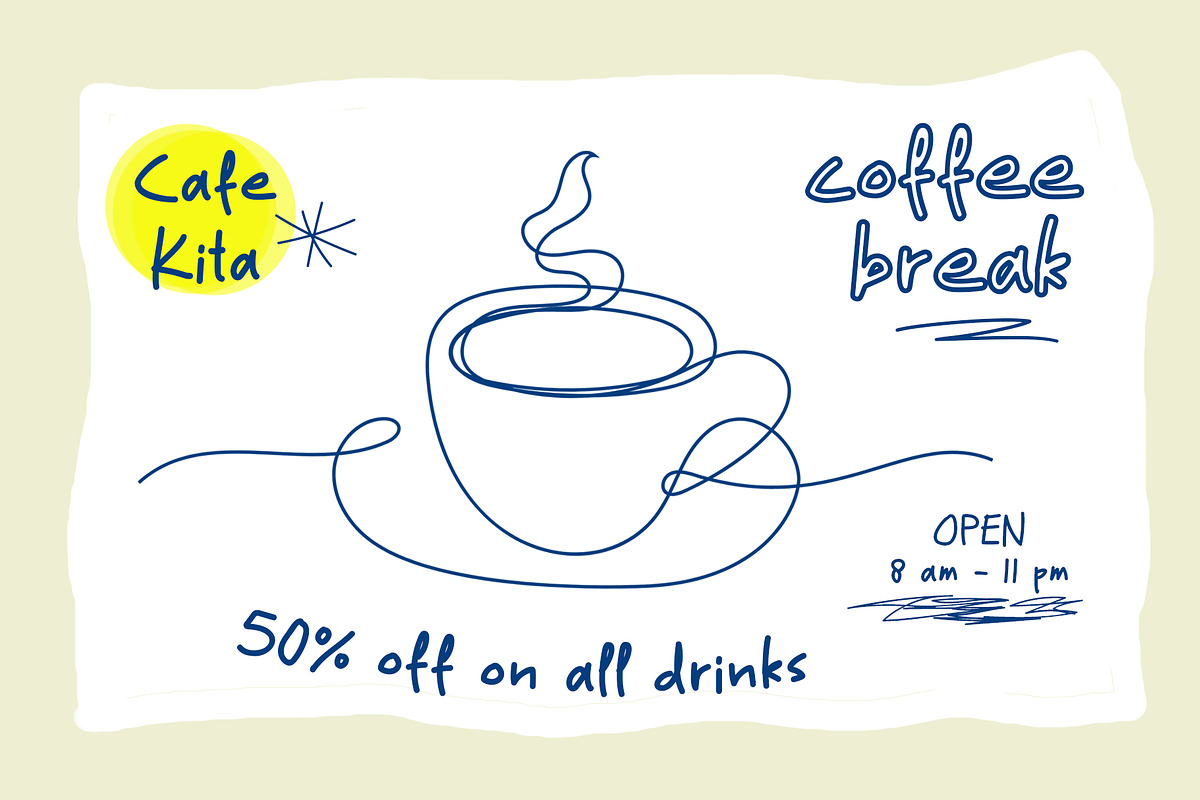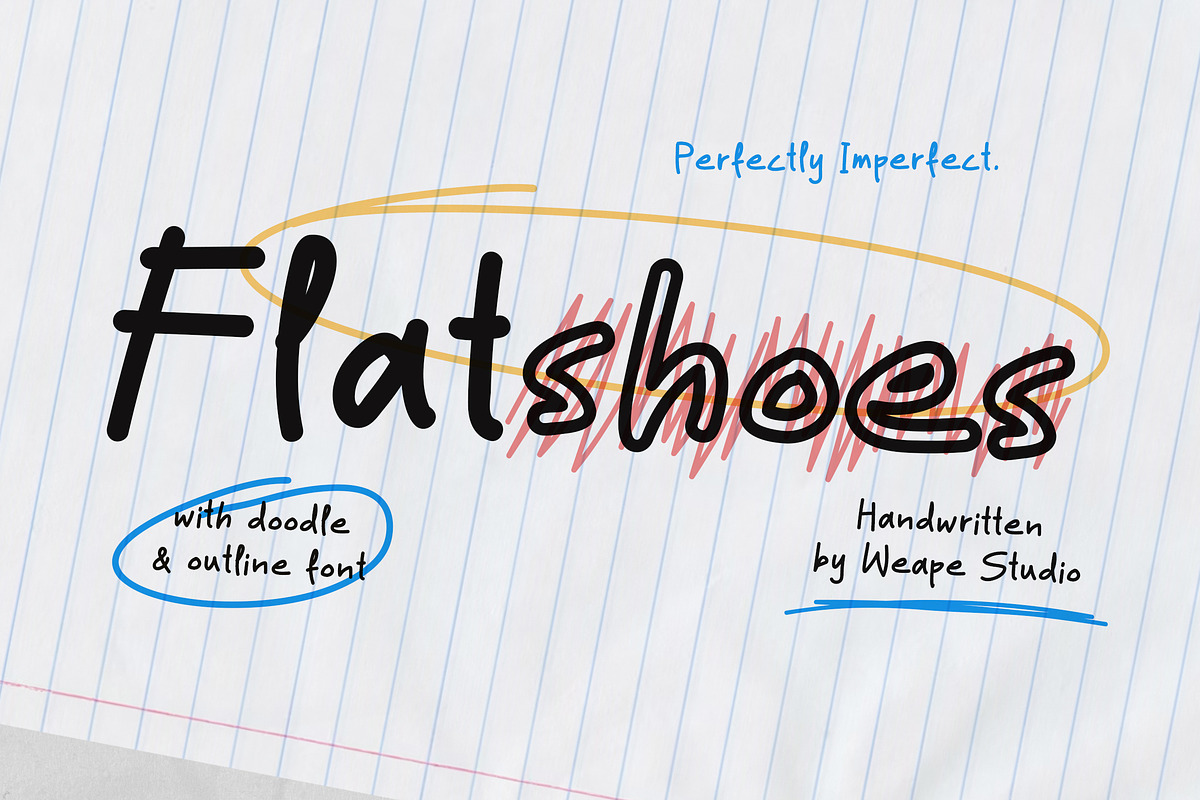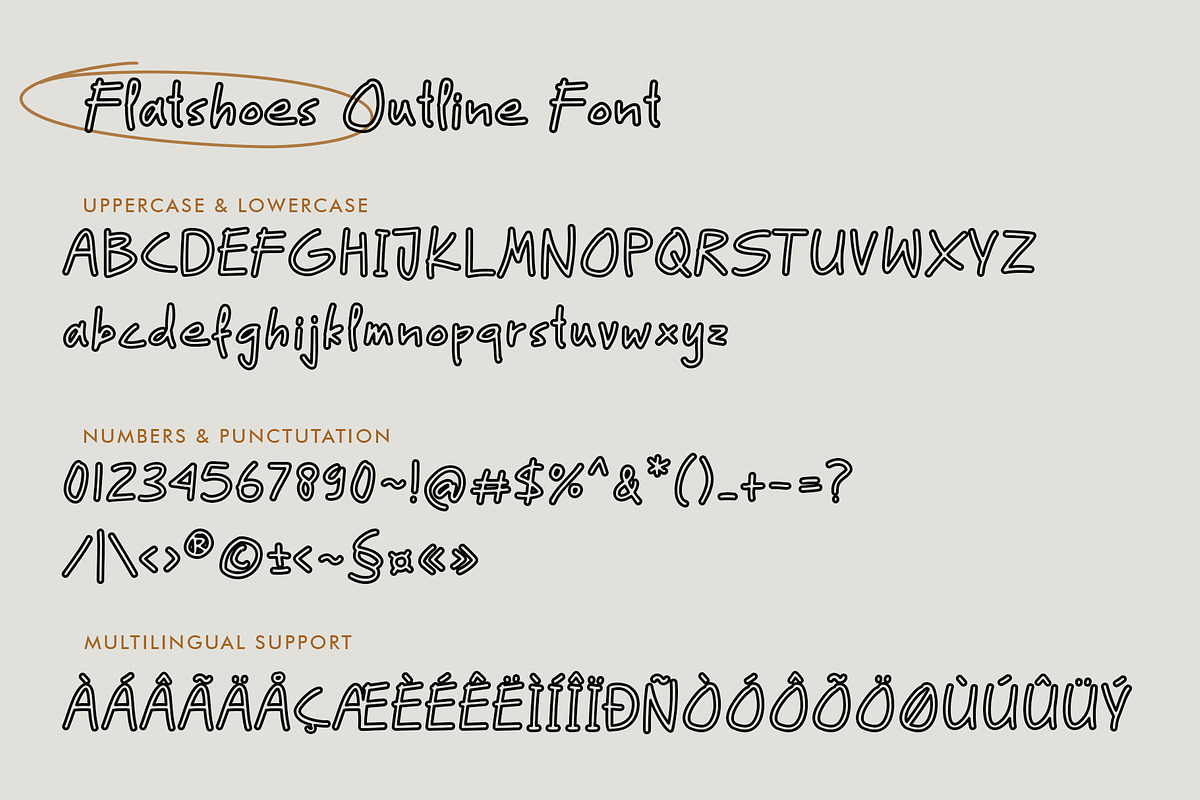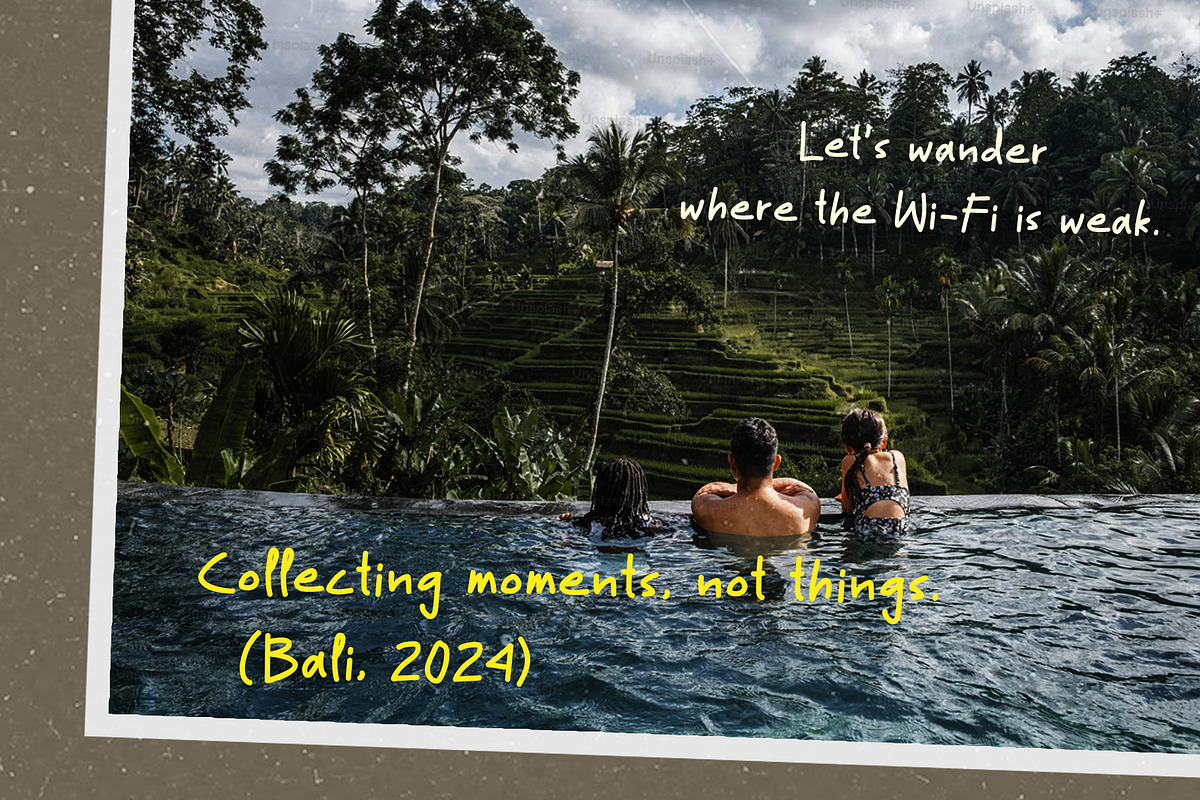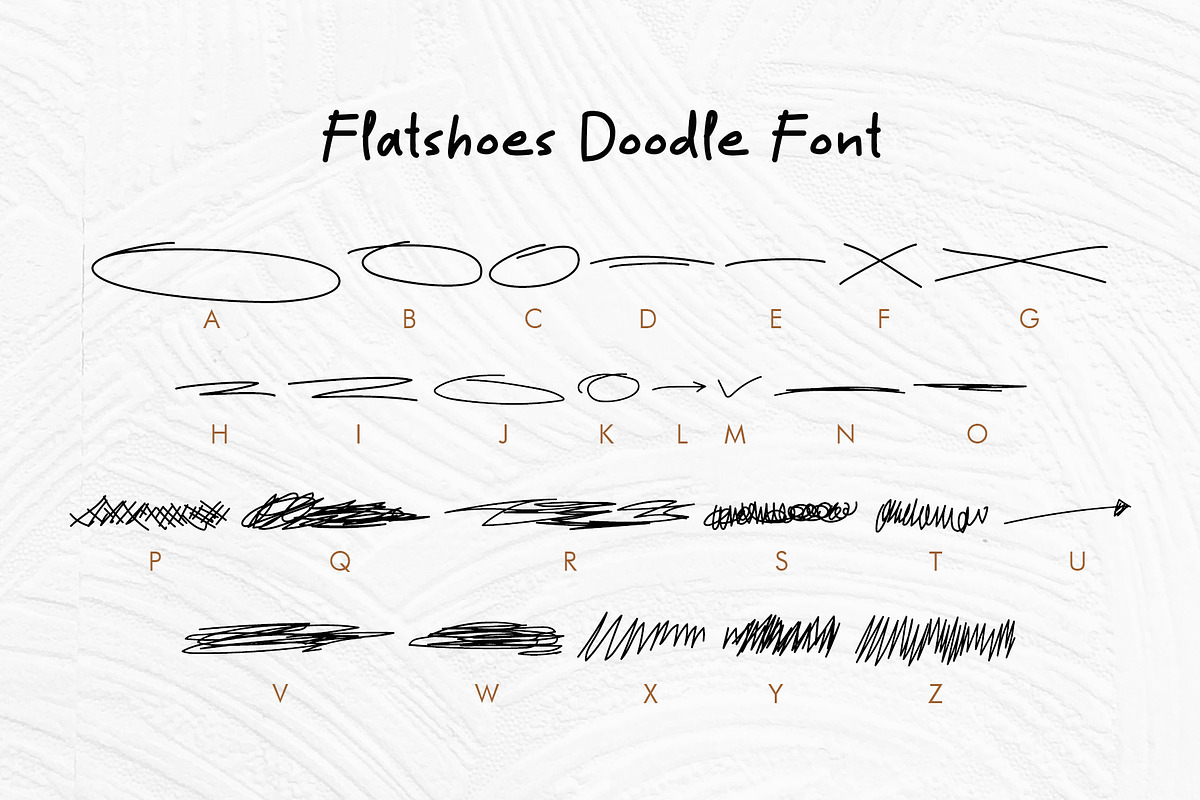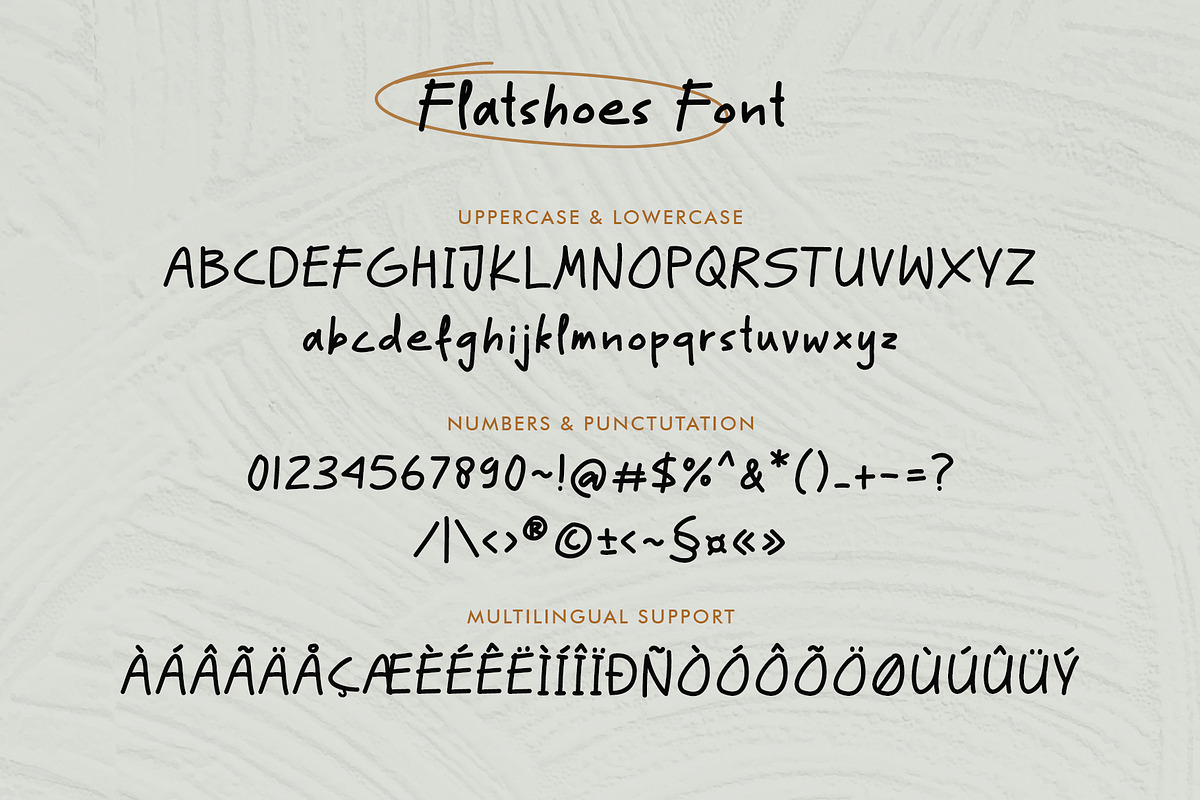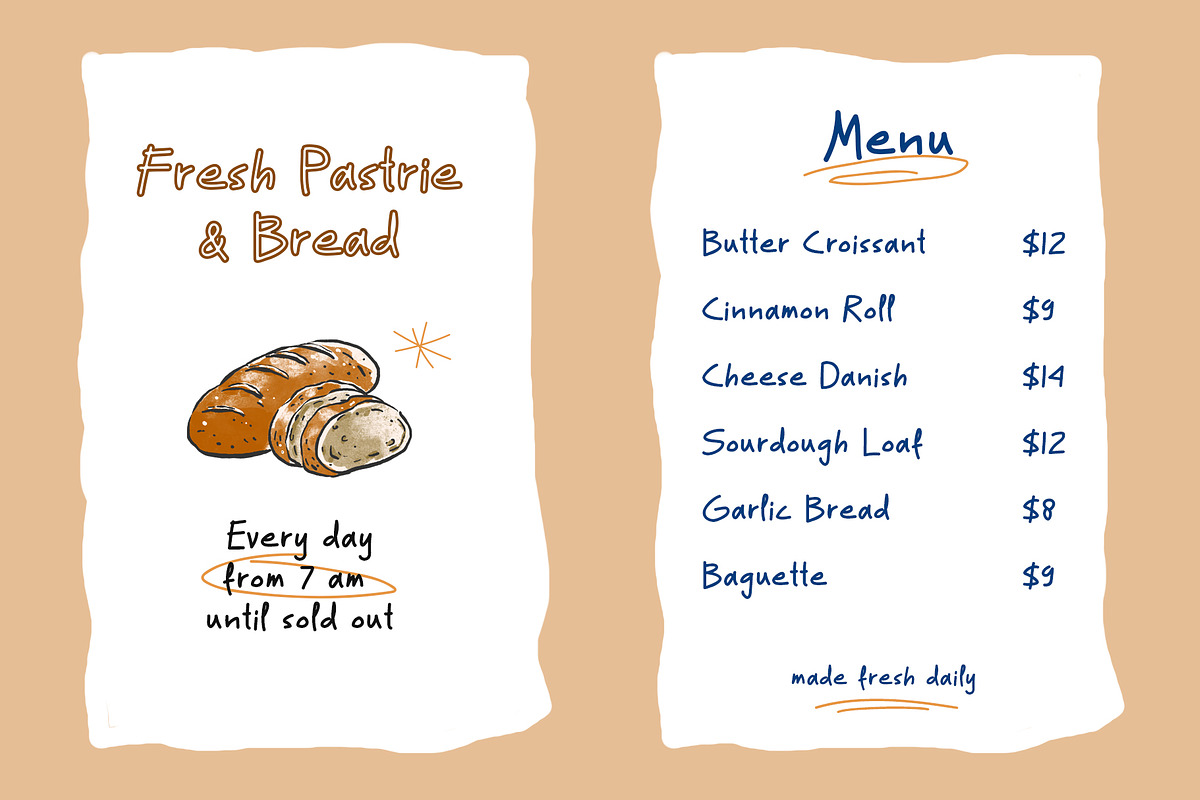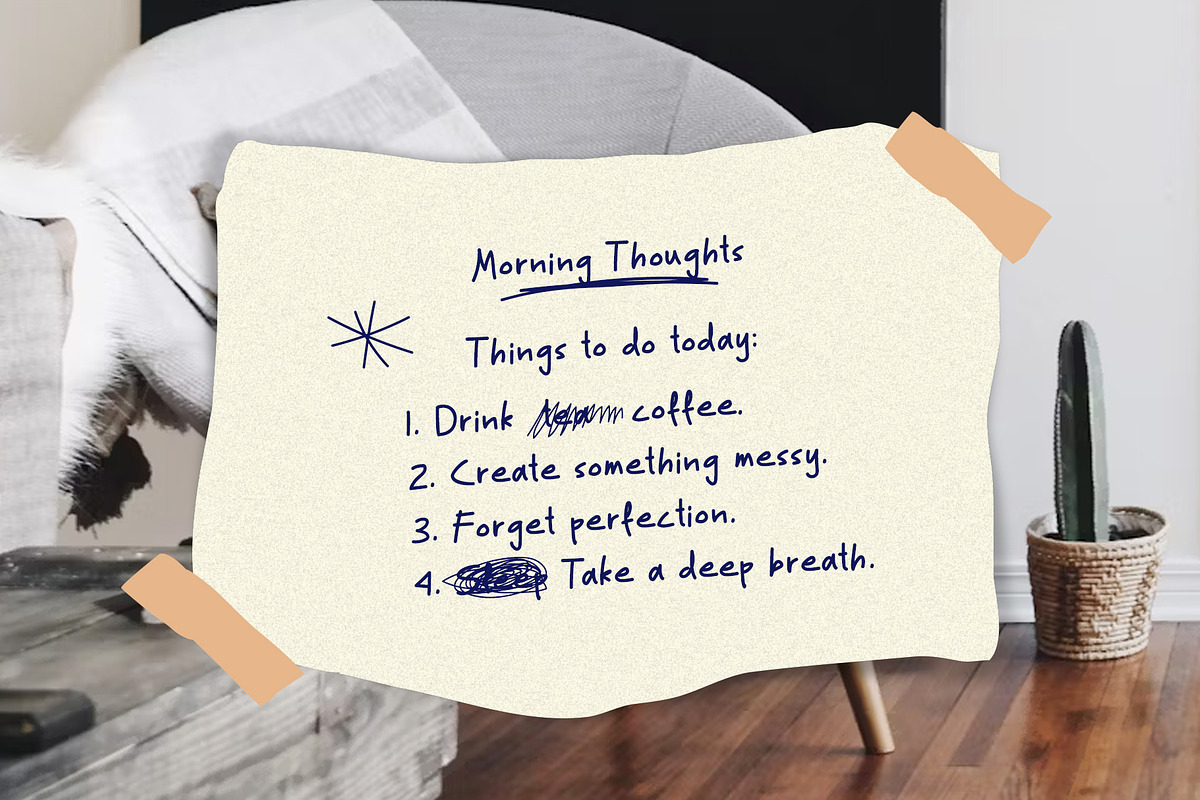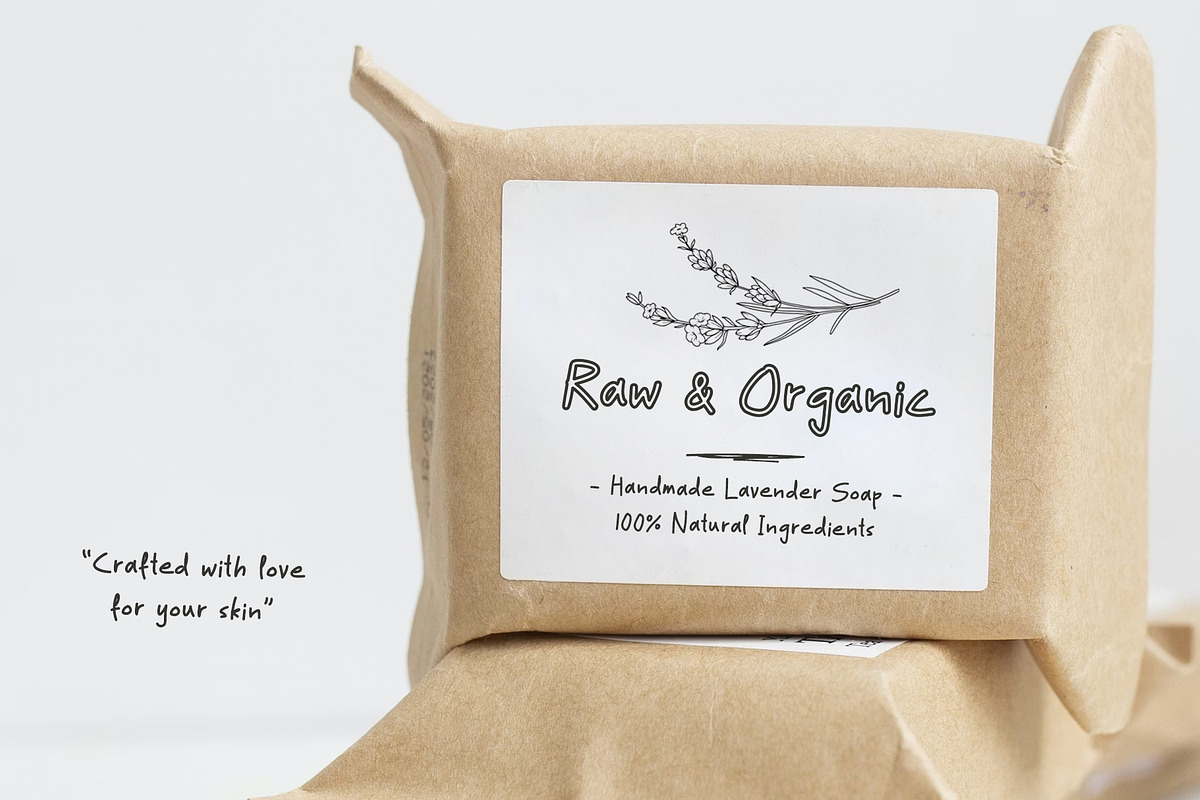
Flatshoes - Handwritten Font
Meet Flatshoes — a font that celebrates the chaotic beauty of everyday life. It’s perfectly imperfect, just like your favorite pair of comfortable shoes.
Flatshoes is a handcrafted font family designed to bring a genuine, human touch to your digital projects. Unlike rigid typography, Flatshoes features an irregular baseline and quirky characters that mimic the flow of natural handwriting. Whether you are designing a cozy coffee shop menu, a relatable social media quote, or organic product packaging, this font delivers that "hand-written note" aesthetic effortlessly.
The best part? It comes as a Trio! You don't just get the text; you get the tools to decorate it. Combine the Regular style with the Outline version for catchy headers, and use the Doodle font to add realistic scribbles, underlines, and arrows instantly—no extra vector files needed!
Flatshoes Regular: The core font with a messy, free-spirited vibe. Perfect for body text, captions, and long quotes.
Flatshoes Outline: A hollow version that pairs perfectly with the regular style. Great for playful headlines and logos.
Flatshoes Doodle: A set of 26+ hand-drawn swashes, underlines, circles, arrows, and scribbles assigned to A-Z keys. Just type a letter to generate a doodle!